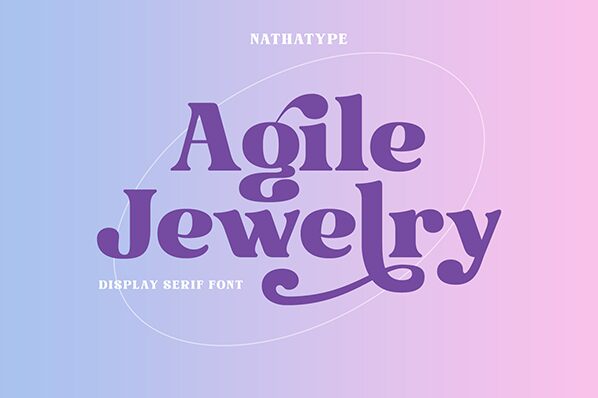
Agile Jewelry font by Nathatype is a bold modern display serif font inspired by jewelry. Its letters showcase distinctive hooks at the edges, thick-thin visible lines, as well as curvy ending wipes for some letters, giving artistic and sophisticated letterform selections. The elegant appearance of this stylish typeface effortlessly brings modern impressions to your design.